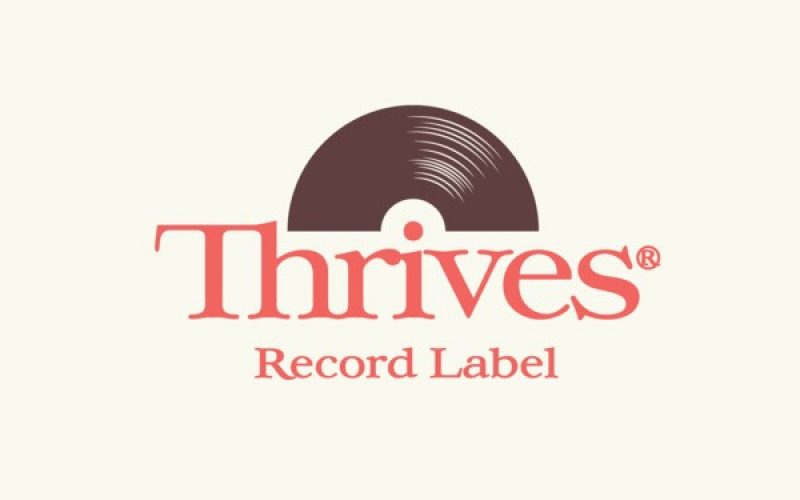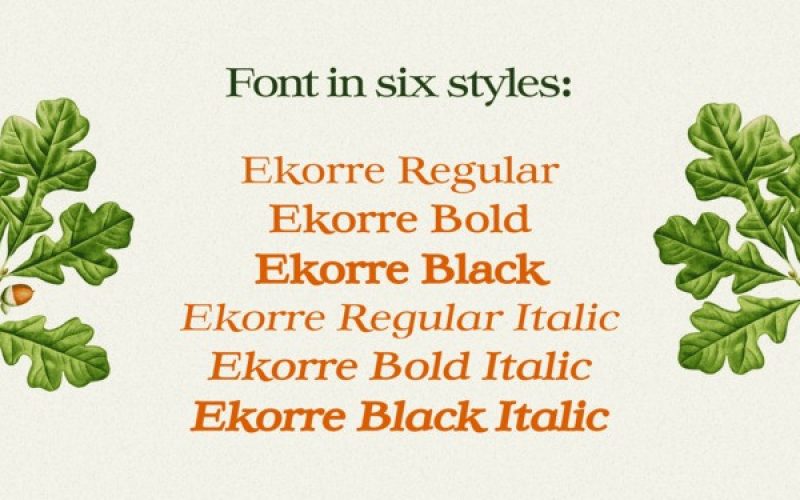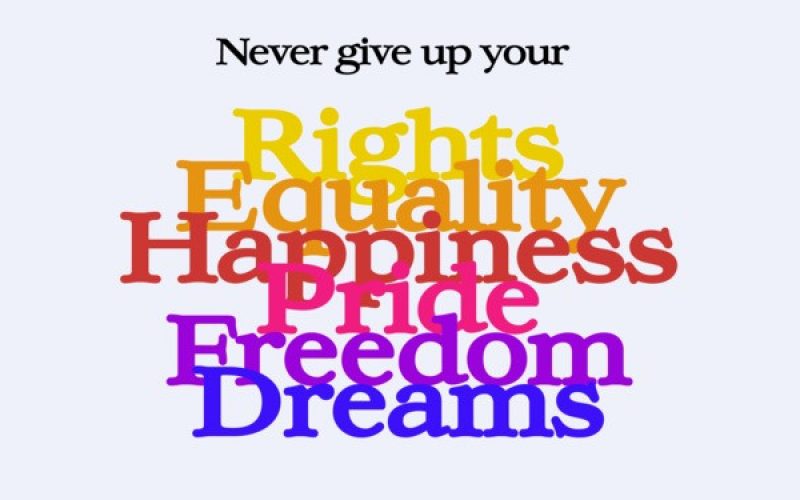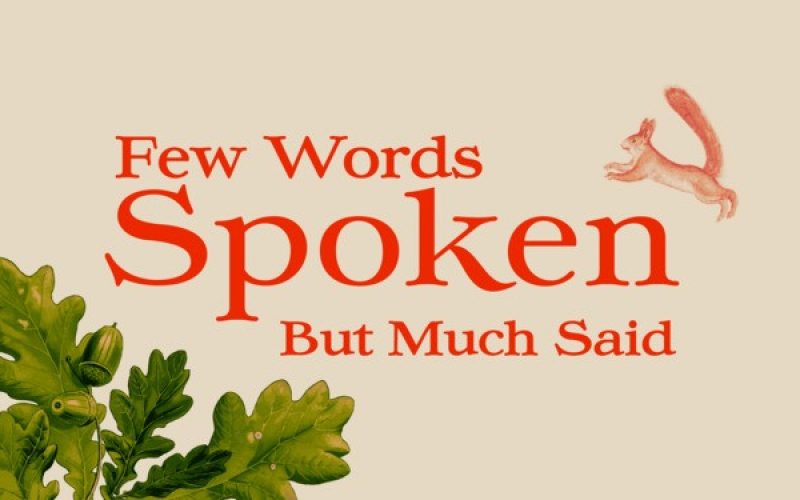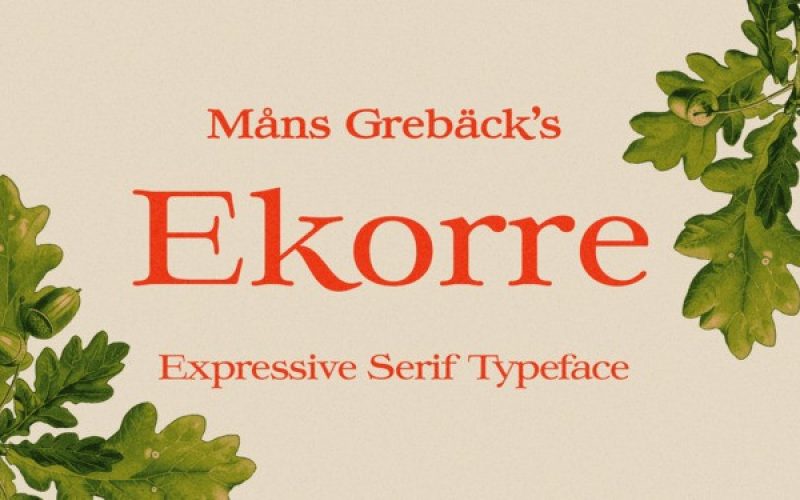
Ekorre Serif Font
Ekorre is a professional serif typeface.
Drawn and created by Mans Greback in 2021, this creative font family has a vivid retro style and a strong personality, and is constructed with soft corners and flowing shapes. The letterforms express empathy, while retaining seriousness.
It is provided in six complementing high-quality styles:
Ekorre Regular, Ekorre Bold, Ekorre Black and each one as Italic.
Ekorre is built with advanced OpenType functionality and has a guaranteed top-notch quality, containing stylistic alternates, ligatures and more features; all to give you full control and customizability.
It has extensive lingual support, covering all Latin-based languages, from North Europa to South Africa, from America to South-East Asia.
It contains all characters and symbols you’ll ever need, including all punctuation and numbers.